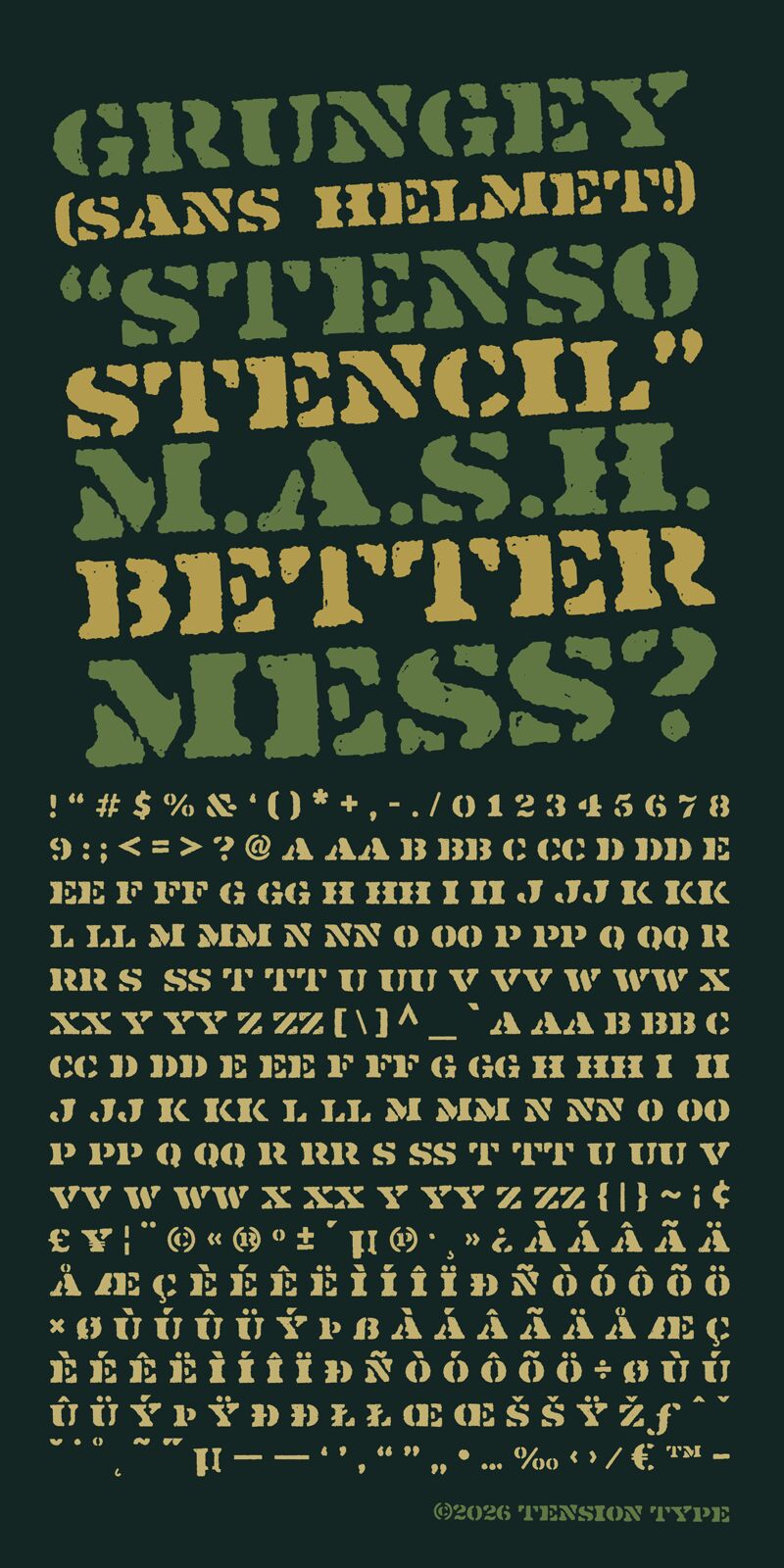
Stenso Stencil font by Tension Type is a stencil font with an army-inspired aesthetic able to instantly draw focus. This free typeface is a perfect selection for designers looking to create raw, offbeat, and adventurous projects with a font that’s every bit as unique. Its curious letterforms offer a departure from regular shapes out there. Adventurous classic and contemporary look.
This font was inspired by a vintage Stenso lettering design from 1956. Originally, it included only the basic alphabet and numbers, along with a few extra letters. To enhance its usability, I meticulously created all of the remaining glyphs. The result is a rough and organic font that adds character and uniqueness to your projects.